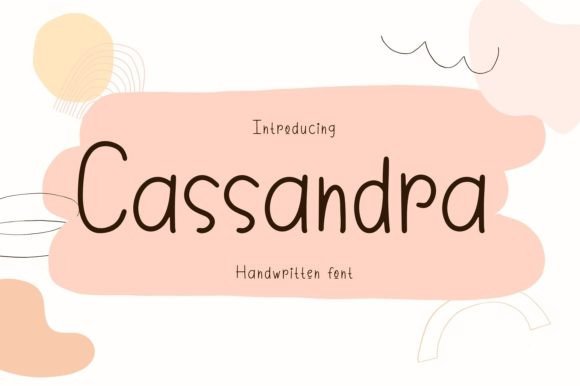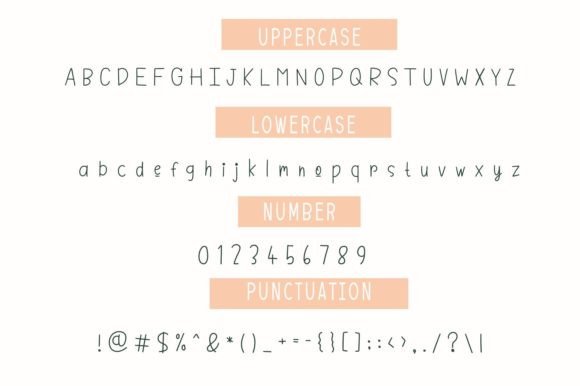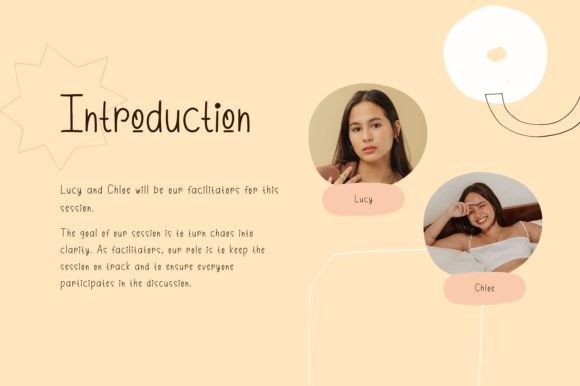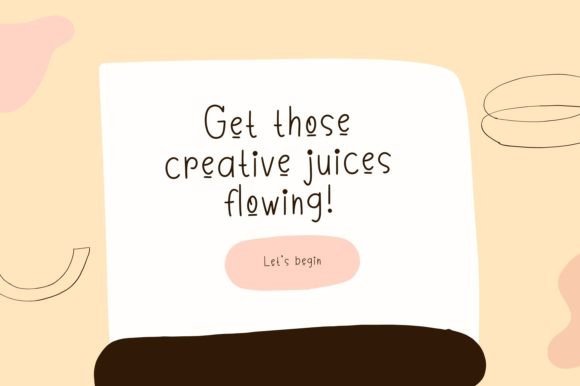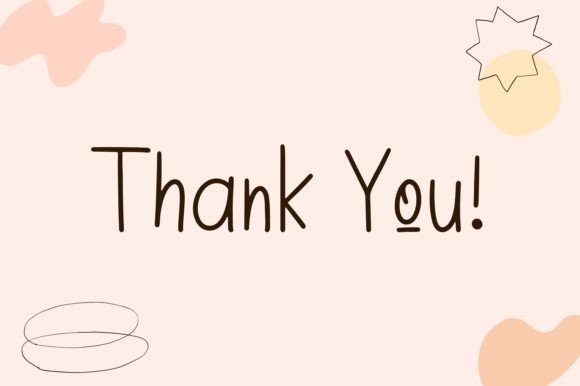
Cassandra Font
About Cassandra Font
Cassandra is a cute and lovely handwritten font. The lightness of its characters makes it suitable for a wide range of design projects. It embodies playfulness and authenticity and is the perfect choice for all your favorite projects.